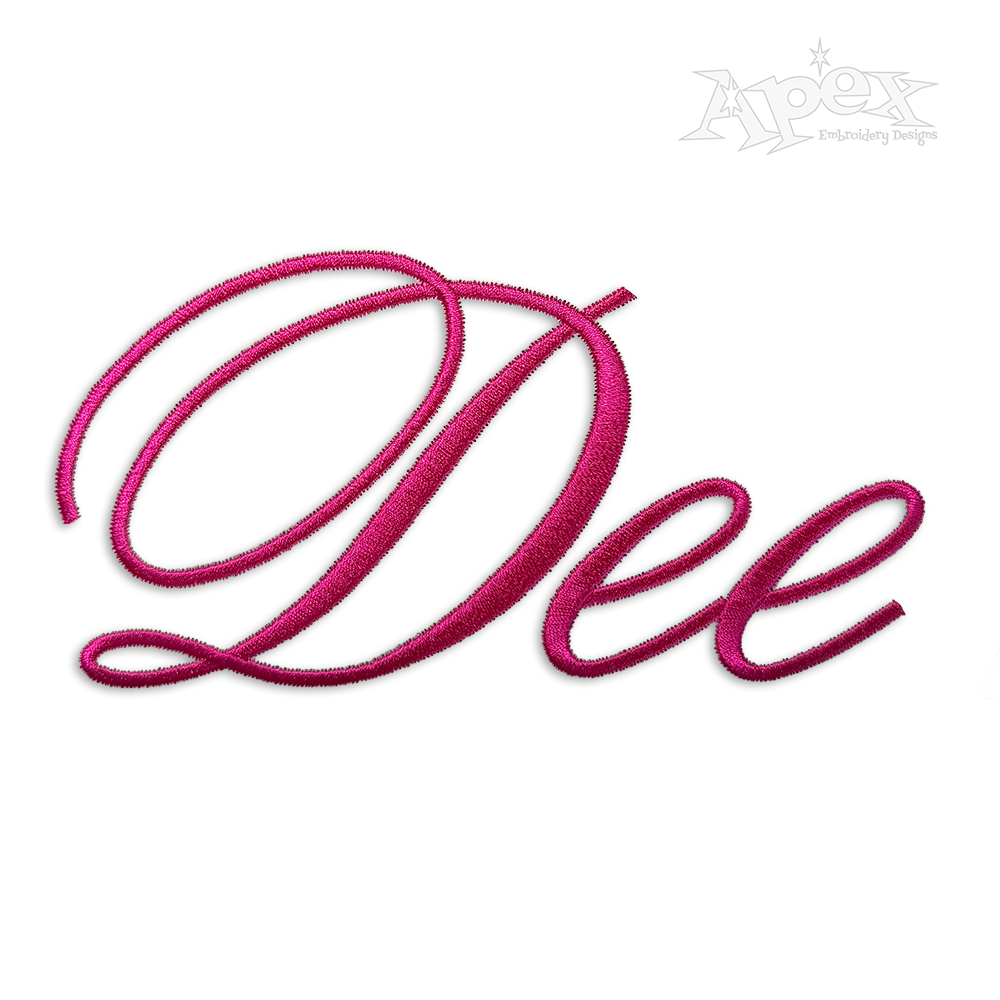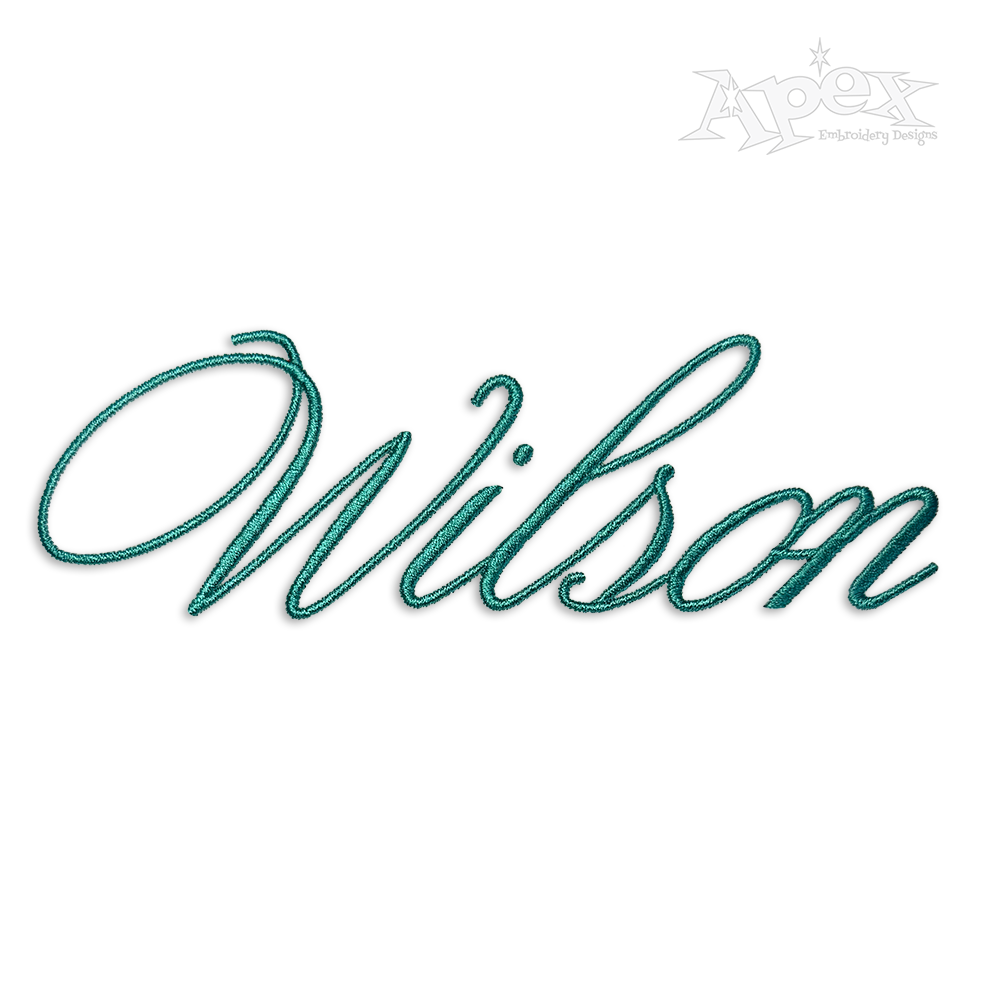
John Hancock Embroidery Font
There is an unmistakable audacity in putting pen to parchment with such conviction that the mark itself becomes legendary. In digitizing the John Hancock Embroidery Font, our studio sought to capture that historic bravado—the sweeping, deliberate flourishes of an eighteenth-century quill translated into fluid, lustrous threadwork. Far from a timid script, this design is an unapologetic, dramatic statement engineered to command attention. It brings an air of timeless prestige and statesmanlike elegance to custom monogramming, breathing dynamic motion into bespoke textile creations.
Project Ideas for John Hancock Embroidery Font
With its signature flair and sweeping swashes, this font turns everyday textiles into bespoke treasures. Consider these inspired applications:
- Executive Gifting & Accessories: Embellish heavy canvas weekenders, tailored garment bags, and leather-trimmed travel dopp kits with a distinguished single-letter monogram.
- Heirloom Table Linens: Elevate crisp linen table runners and oversized dinner napkins with dramatic individual initials that spark dinner table conversation.
- Bespoke Resort & Loungewear: Transform plush terry bathrobes, waffle-knit spa wraps, and silk smoking jackets into luxury personal statements.
- Bridal & Milestone Commemorations: Stitch a dramatic, sweeping new family surname initial onto wedding ring pillows, bridal party tote bags, or ceremonial keepsake quilts.
- Holiday Showpieces: Add timeless grandeur to velvet holiday stockings, tree skirts, and winter mantle runners.
Given the expansive flourishes and signature styling of the John Hancock letterforms, thoughtful placement ensures the design shines with balanced proportion:
- Corner Diagonal: Angle a 3-inch or 4.5-inch initial approximately 3 to 4 inches from the hem of oversized linen napkins or luxury throw blankets to let the trailing swashes drape naturally along the fabric edge.
- Center Chest: Position the 4.5-inch letterform squarely on the center front of crewnecks, hoodies, or robes to create a fashion-forward, collegiate-meets-classical monogram.
- Pillow Sham Flange or Center: Anchor a 6-inch initial directly at the center of euro shams or bolster pillows, providing an undeniable centerpiece for luxury master suite bedding.
- Tote Bag Facing: Place the 4.5-inch or 6-inch size equidistant between handles on structured canvas bags, giving the lettering ample negative space to breathe.
John Hancock Craft & Letterform Details
The magic of authentic calligraphic embroidery lies in the subtle dance between thick swells and hairline tapers. When engineering the John Hancock font, our digitizers took painstaking care to map out intuitive satin stitch paths that mirror the natural pressure of an ink-laden nib. Each turn of a curve transitions smoothly, avoiding unsightly stitch bunches or harsh needle penetrations that can stiffen delicate fabrics.
Generous underlay foundations have been built into every stroke, providing structural lift and loft so the rich satin stitches sit high and proud against textured materials like linen, pique, and terrycloth. For broader strokes in the 4.5-inch and 6-inch sets, stitch angles are mathematically calculated to eliminate fabric pulling while preventing overly long satin floats. The result is a crisp, sculptural embroidery alphabet that runs reliably on your machine and leaves an indelible mark of craftsmanship on every piece you create.